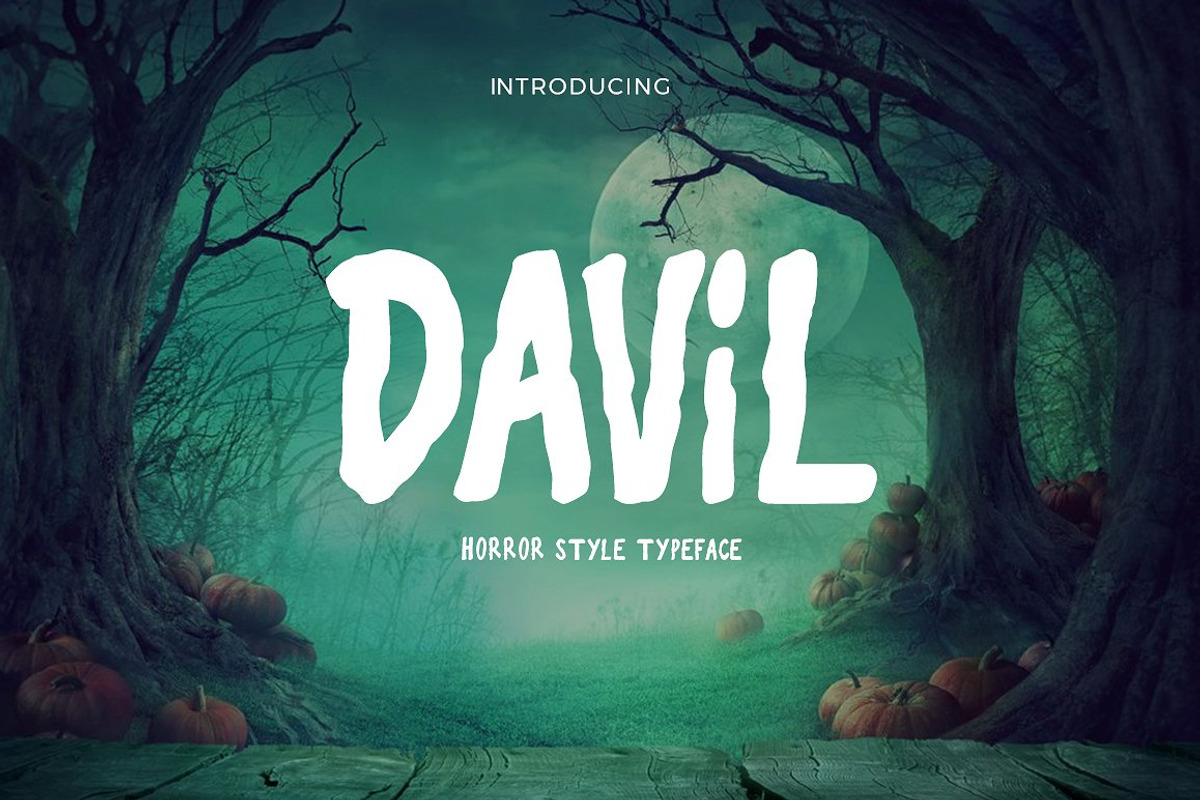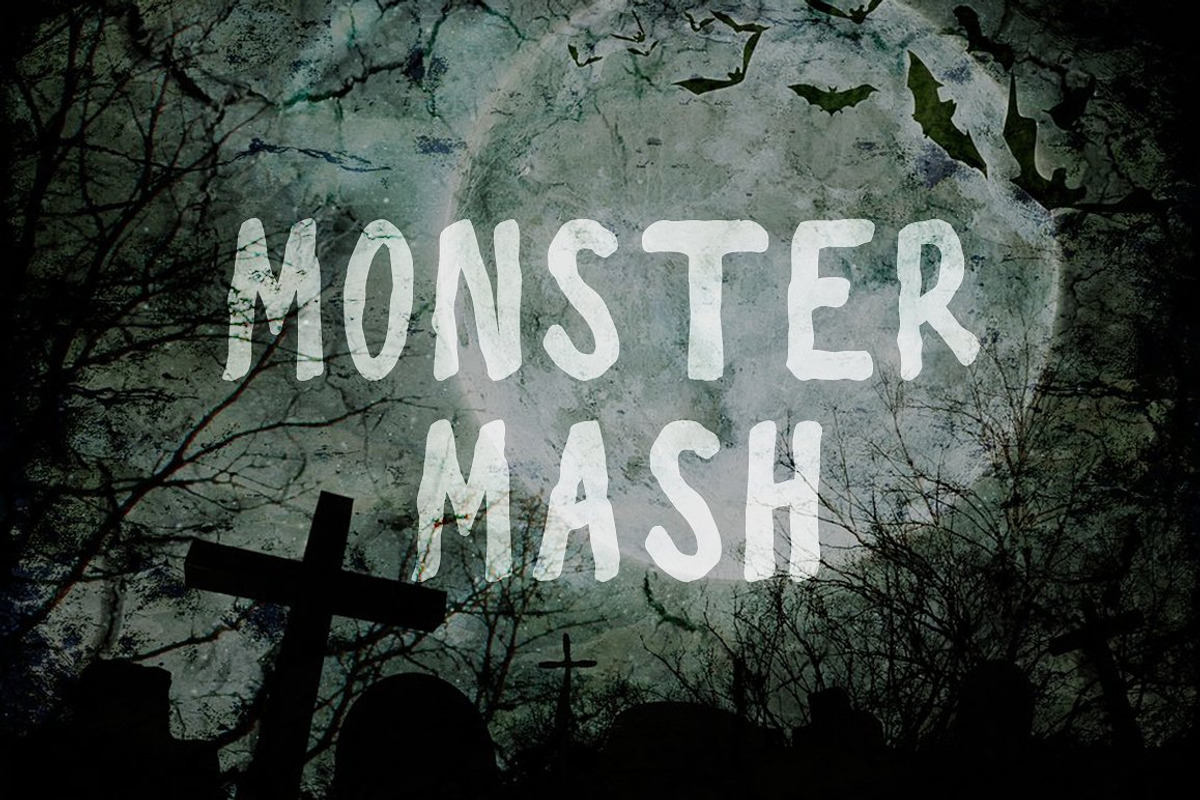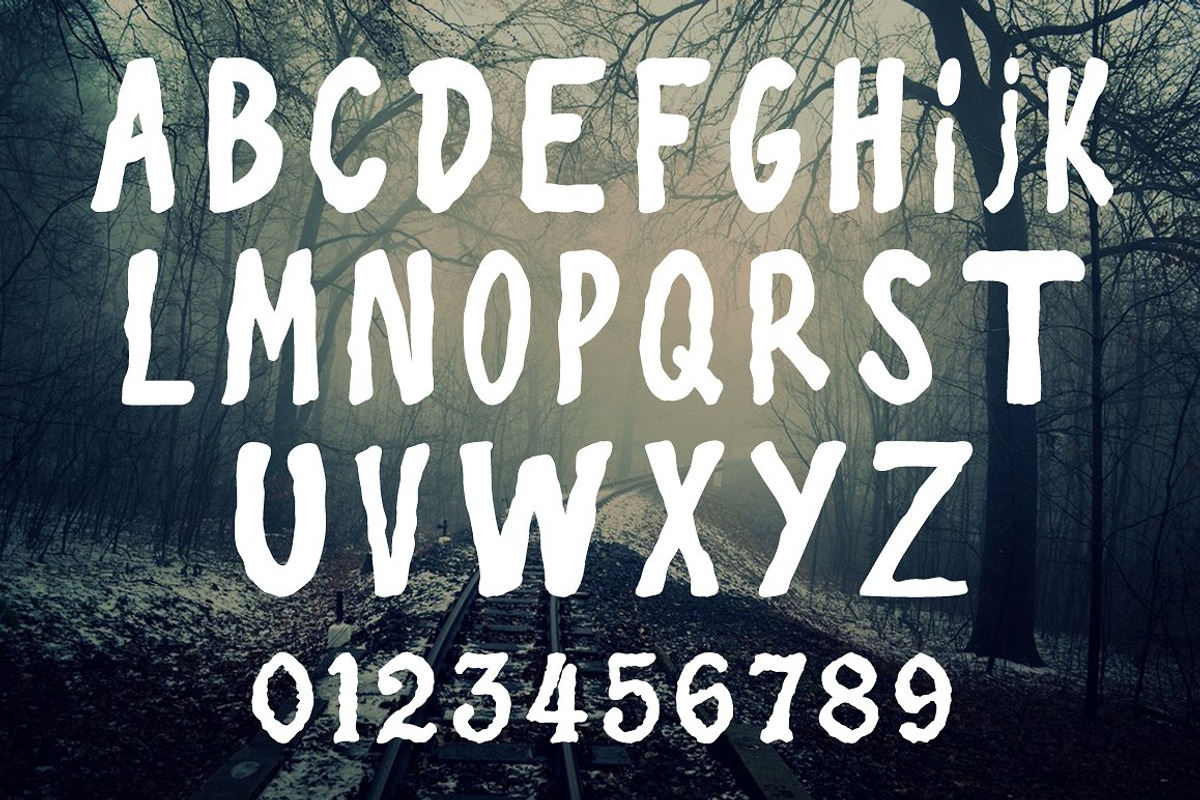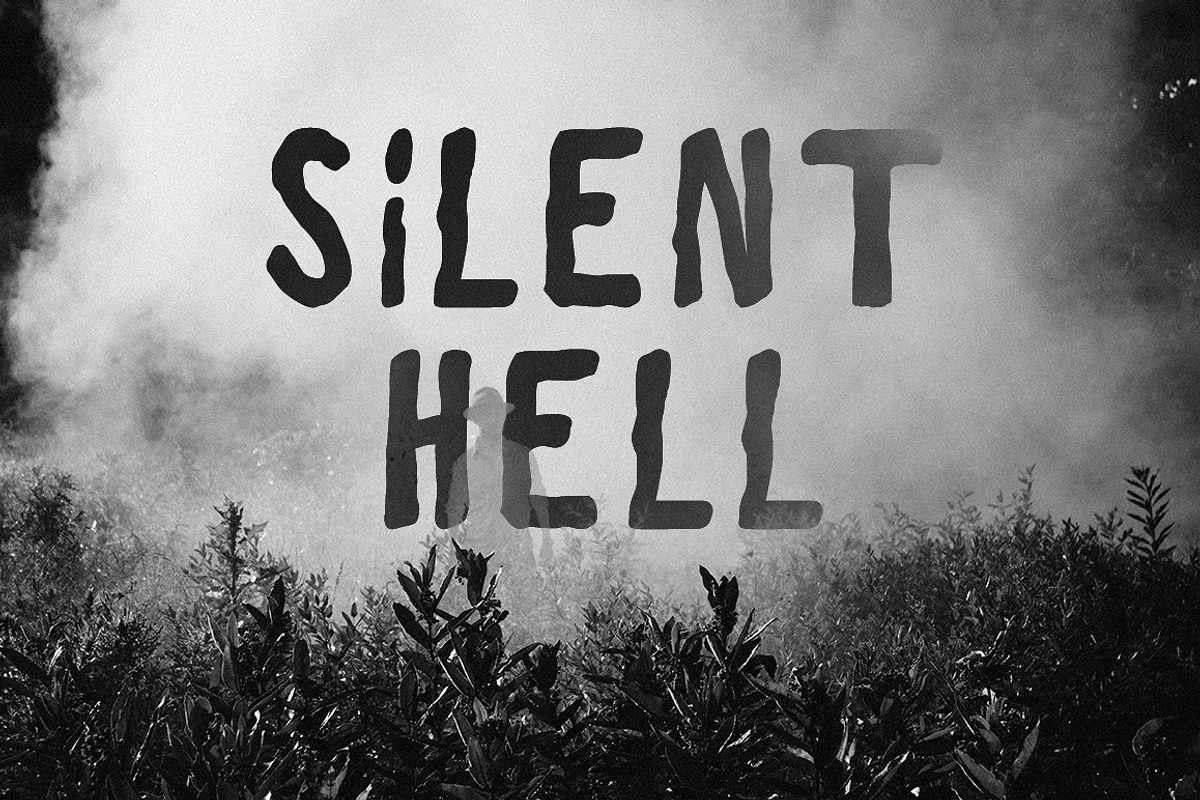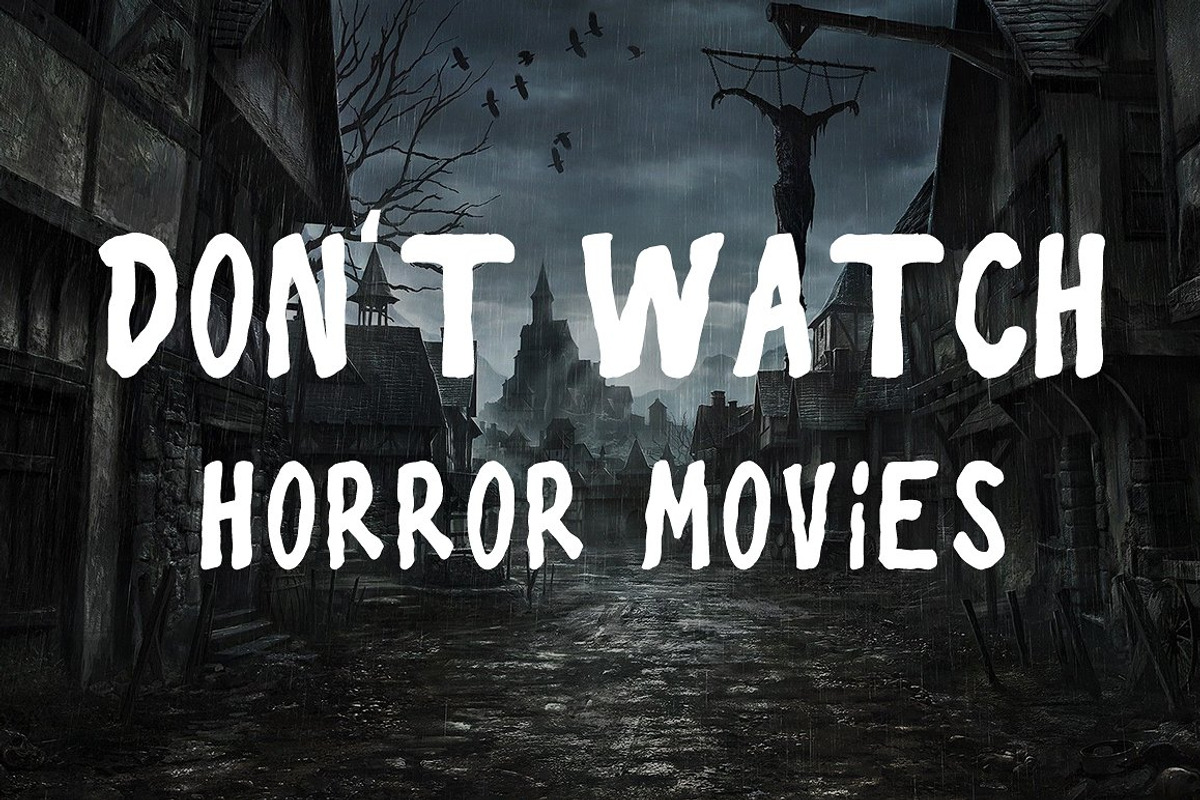
Davil Typeface
Davil Typeface by DuoFankaar is a font selected for branding, posters, packaging, typography.
Why Davil Typeface is worth a look
Davil Typeface by DuoFankaar fits naturally into Branding, posters, packaging, typography.